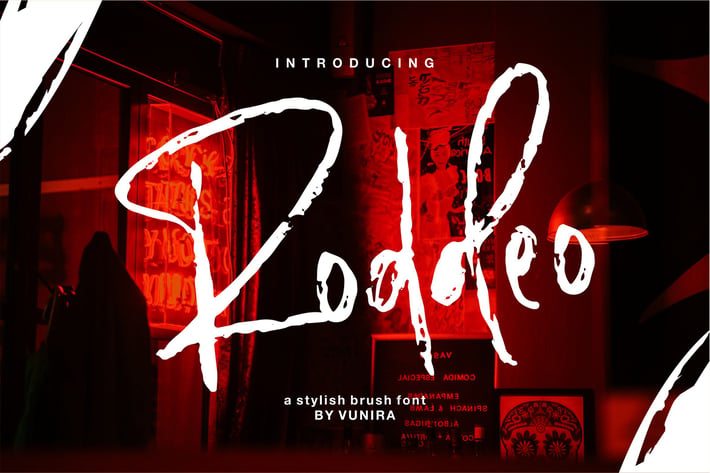
Roddeo | A Stylish Brush Font
Roddeo | A Stylish Brush Font with a calligraphy style, So beautiful on invitation like greeting cards, branding materials, business cards, quotes, posters, and more!